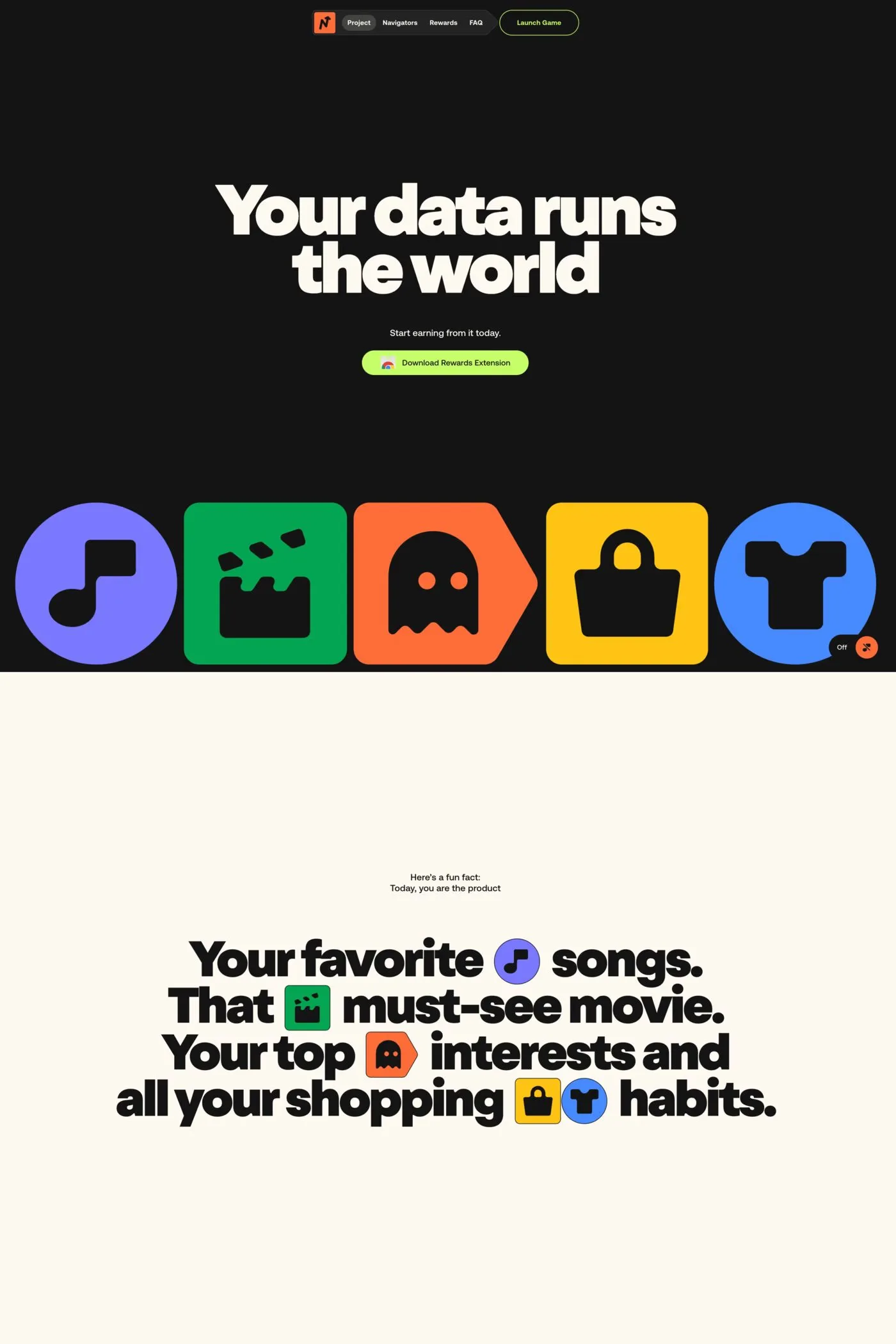
Oldschool Grotesk is a sans-serif typeface from Kilotype.
Oldschool Grotesk is a look behind the façade of Victorian sans serif inscriptions. Inheriting some of the distinct aspects of early British Grotesques and lettering from that period, it peels away the top layers of apparent quirkiness and eccentric detail.